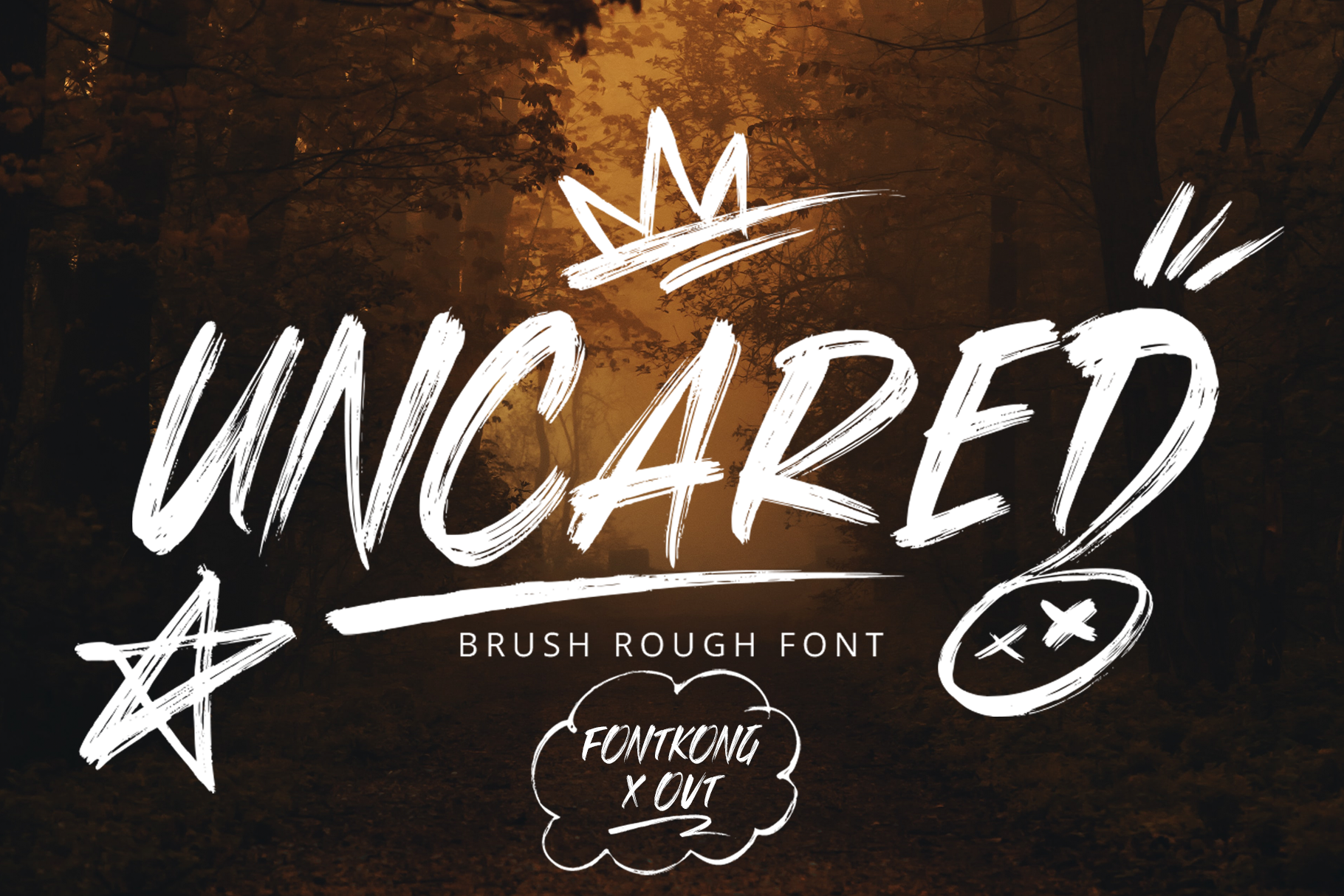
Uncared - Brush Rough Font
Meet "Uncared," a brush rough font that embodies the beauty of raw, unpolished design. Ideal for creatives who want to add a rugged, authentic touch to their projects, Uncared features bold strokes and an uneven texture that bring a sense of spontaneity and energy to your work.
Whether you're designing edgy posters, dynamic logos, or eye-catching social media graphics, Uncared provides a distinctive look that stands out. Its rough brush strokes convey a handmade feel, making it perfect for projects that require a personal, artisanal touch.
Uncared offers a complete character set, including uppercase, lowercase, numerals, punctuation, and special characters. Its unique style is versatile enough to be used in a variety of contexts, from streetwear branding to grunge-themed artwork.
Add Uncared to your design toolkit for a font that celebrates the art of imperfection, bringing a bold and unrefined aesthetic to your creative endeavors.